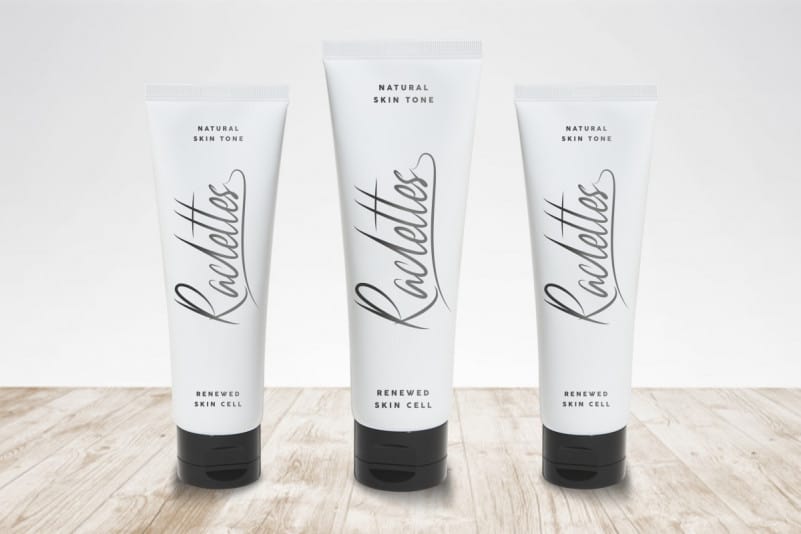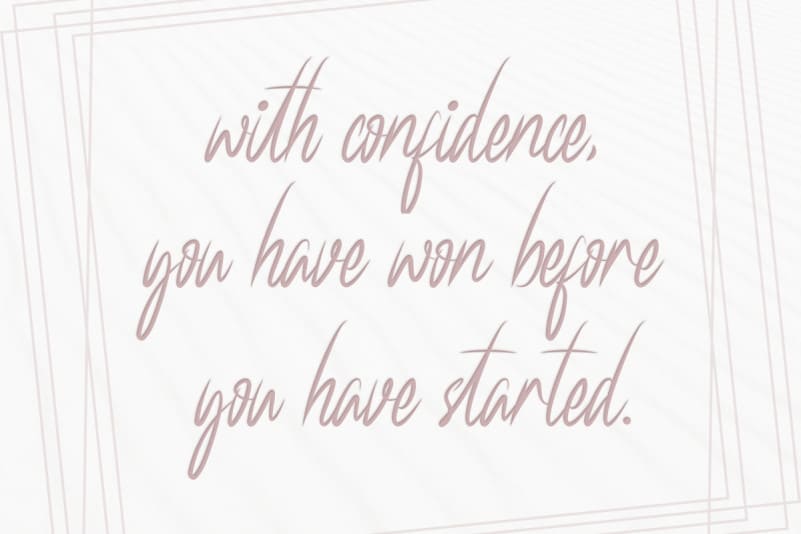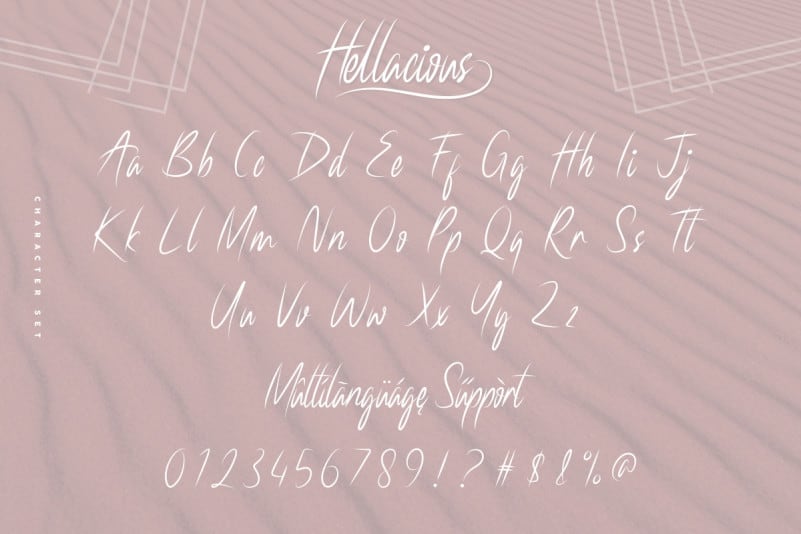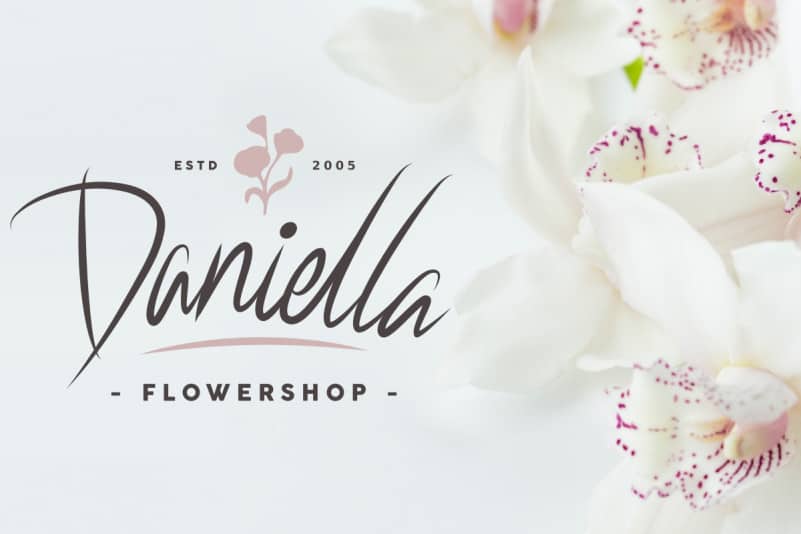
Hellacious Script Font
Hellacious Script Font is made in Bandung and Garut, beautiful cities in Indonesia. The font was handcrafted for any your special projects including : weddings, promotion, events, branding, advertising, magazine, shopping, signage, invitation, stationery, social media posts, product packaging, product designs, label, photography, watermark or and any projects that need calligraphy handwriting style.
Hellacious Script Font includes full set of gorgeous uppercase ,lowercase letters, numerals, a range of punctuation and ligatures. All letters include realistic hand-lettered style.